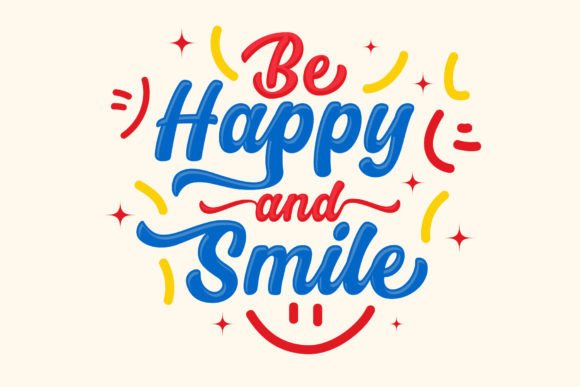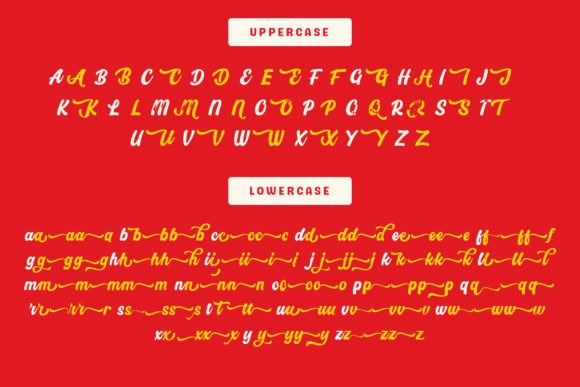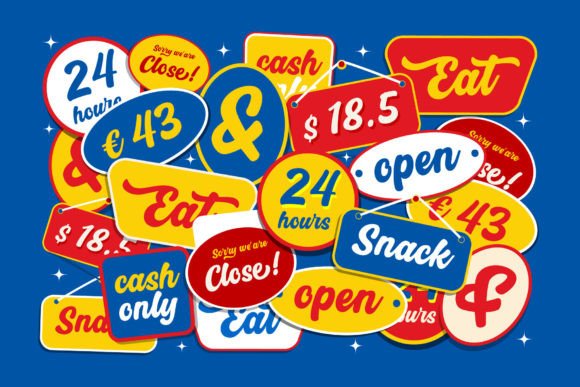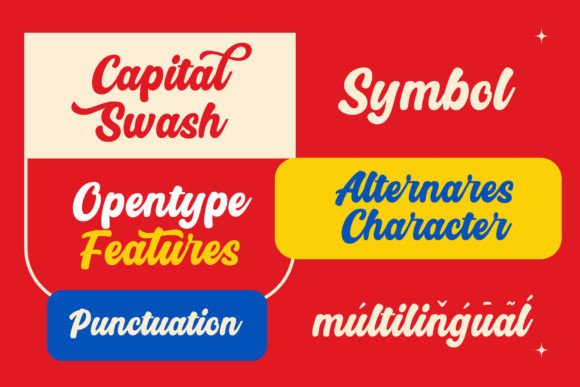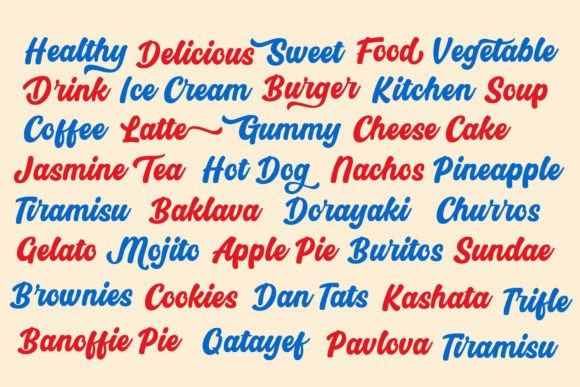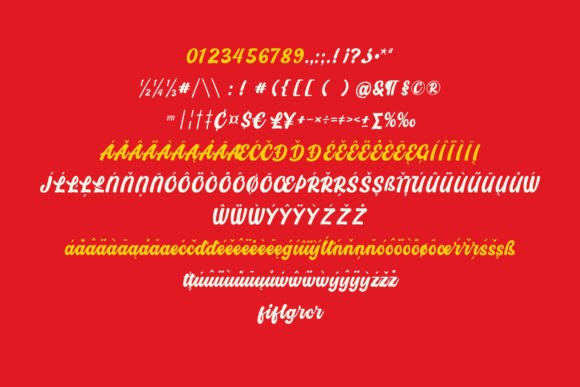
Introducing Almondy Amor Font: A Fun and Versatile Script Typeface
Are you tired of using the same old fonts for your design projects? Look no further than Almondy Amor Script, a new and exciting font that’s sure to add a touch of fun and personality to your work. In this article, we’ll take a closer look at the Almondy Amor Font, its features, and how it can be used to elevate your designs.
The Inspiration Behind Almondy Amor Font
The Almondy Amor Font is the result of careful research and inspiration drawn from a wide range of references. The goal was to create a font that is not only visually appealing but also versatile and easy to use. The result is a typeface that is fun, cute, and beautiful, making it perfect for a variety of design projects.
Key Features of Almondy Amor Font
So, what makes Almondy Amor Font so special? Here are some of its key features:
- Versatile: Almondy Amor Font is designed to be versatile, making it suitable for a wide range of design projects, from branding and headers to posters and packaging.
- Fun and Cute: This font is perfect for designers who want to add a touch of fun and playfulness to their designs.
- Beautiful: With its elegant and refined lines, Almondy Amor Font is sure to add a touch of sophistication to your designs.
Using Almondy Amor Font in Your Design Projects
Almondy Amor Font is perfect for a variety of design projects, including:
- Branding: Use Almondy Amor Font to create a unique and memorable brand identity.
- Headers: Add a touch of elegance and sophistication to your headers and titles.
- Logotype: Create a custom logotype that stands out from the crowd.
- Posters: Use Almondy Amor Font to create eye-catching posters that grab attention.
- Magazine: Add a touch of fun and personality to your magazine layouts.
- Packaging: Use Almondy Amor Font to create beautiful and eye-catching packaging designs.
- Food Menus: Add a touch of elegance and sophistication to your food menus.
- Restaurants: Use Almondy Amor Font to create a unique and memorable dining experience.
What to Expect from Almondy Amor Font
When you use Almondy Amor Font in your design projects, you can expect:
- High-quality typography: Almondy Amor Font is designed to provide high-quality typography that’s clear and easy to read.
- Flexibility: This font is designed to be flexible, making it suitable for a wide range of design projects.
- Ease of use: Almondy Amor Font is easy to use and can be easily integrated into your design workflow.
| Author | Storic |
In conclusion, Almondy Amor Font is a fun and versatile script typeface that’s perfect for designers who want to add a touch of personality to their designs. With its elegant and refined lines, this font is sure to elevate your designs and make them stand out from the crowd. Whether you’re working on a branding project, creating a poster, or designing a menu, Almondy Amor Font is a great choice.
Get Ready to Elevate Your Designs with Almondy Amor Font